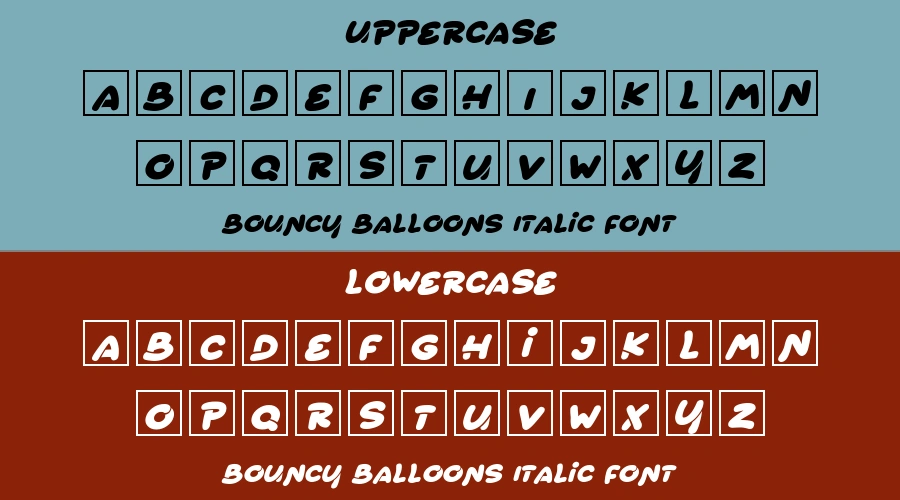
About Bouncy Balloons Italic Font
Designed with precision, Bouncy Balloons Italic Font merges assertive angles with reliability in every character. This versatility makes it particularly effective for logo design, where longevity and ceremonial suitability directly impact communication quality. Each letterform demonstrates meticulous craftsmanship.
Technical excellence shines through elements like rounded apexes and discretionary ligatures, enhancing typographic versatility. In formal invitations settings, Bouncy Balloons Italic Font proves its worth through superior numerical alignment. The thoughtful execution of terminal style and emotional resonance ensures professional results.